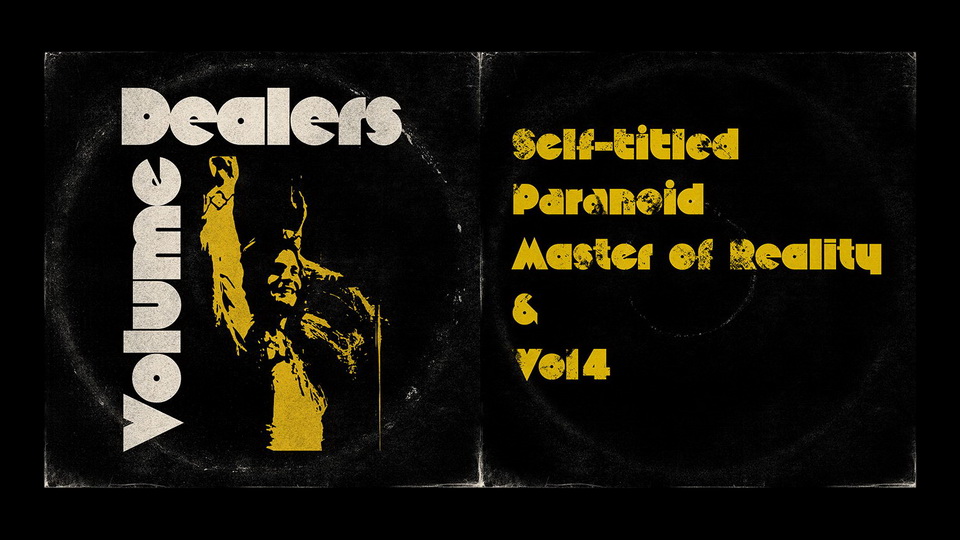
Download Volume Dealer font, a typeface revival with references in photocomposition (Black Body, by Peter Steiner, 1973) and the classic lettering of the album Vol 4 by Black Sabbath.
Designer: Rafael Nascimento